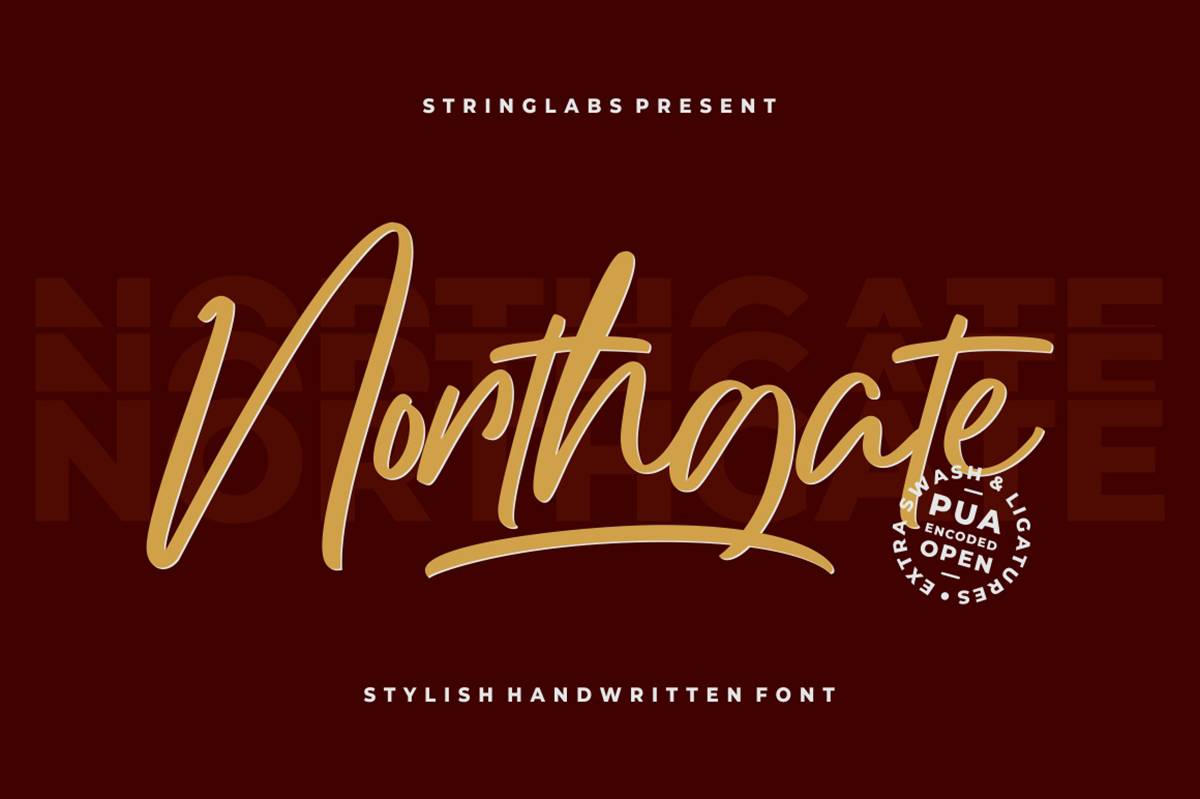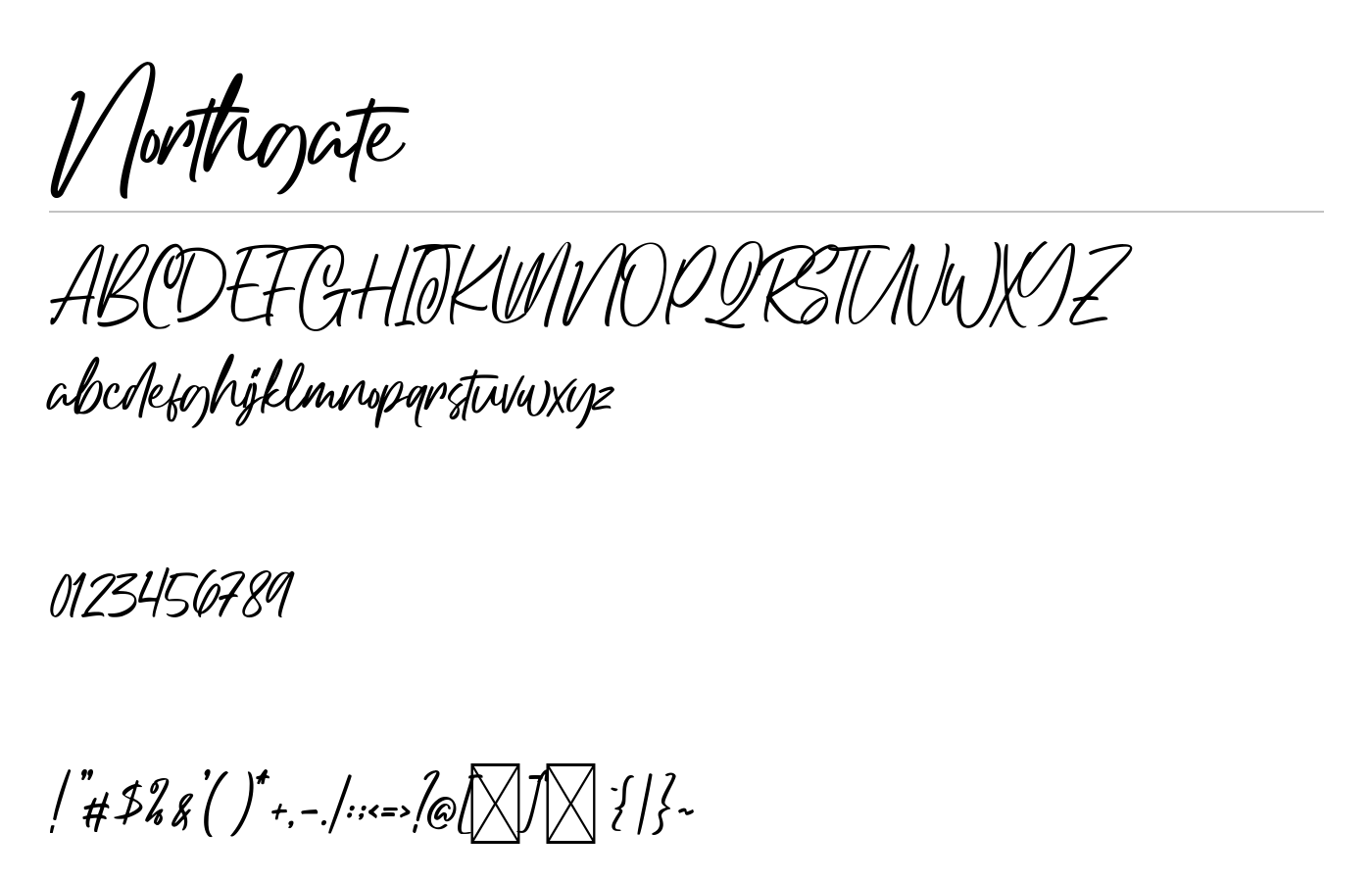
Northgate is a stylish script font with a casual, handwritten feel that combines elegance and approachability. Its tall, slender letterforms with smooth, flowing strokes make it perfect for creative branding, invitations, and modern editorial uses where a personal touch is desired. This font works best in headlines, logos, and designs that benefit from a chic yet friendly aesthetic.
Northgate Font
About Northgate Font
| Font family | Northgate Font |
| Designer | Stringlabs |